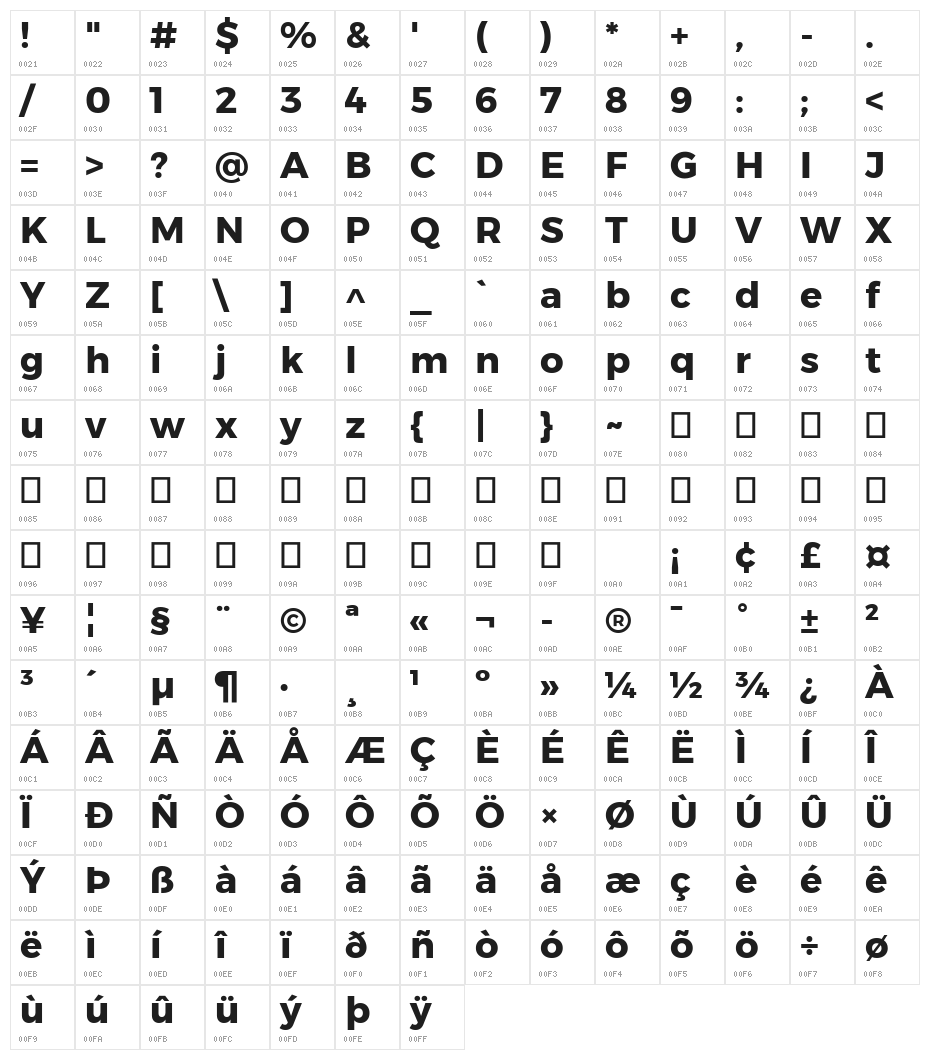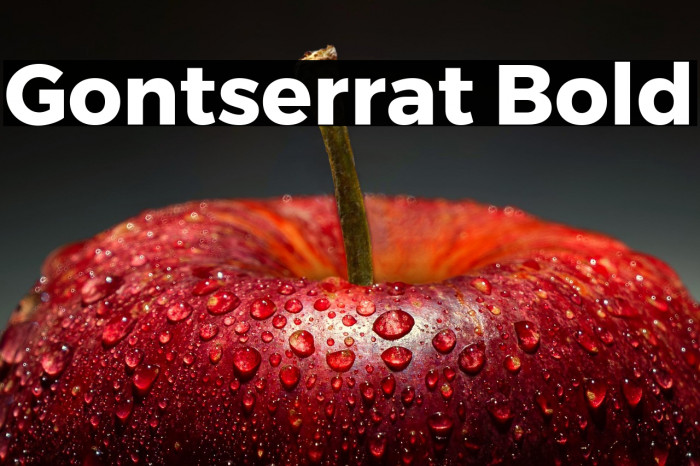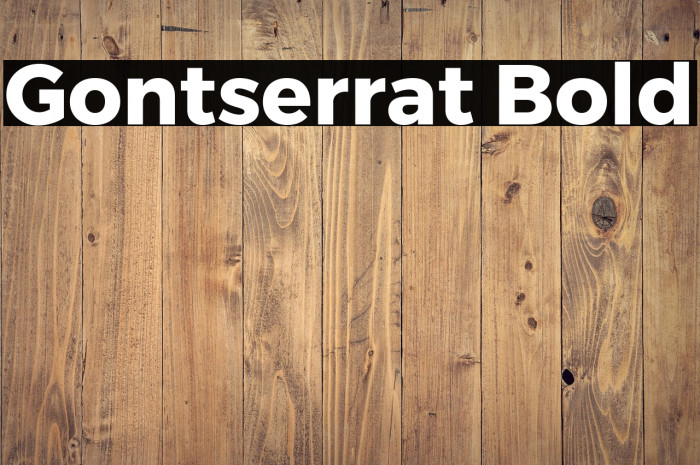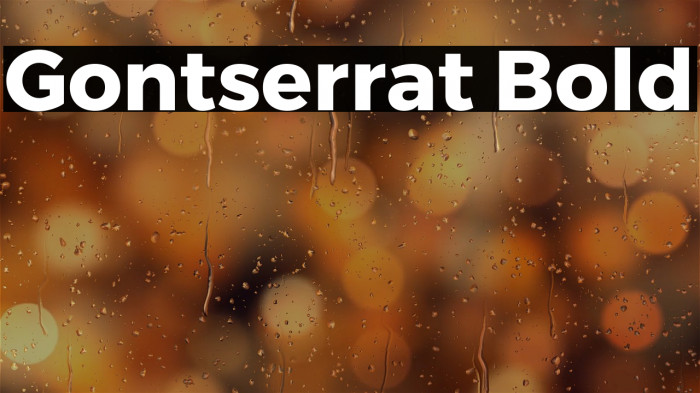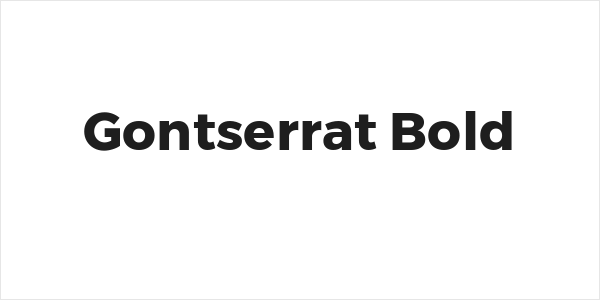
Gontserrat Bold Font
Gontserrat Bold Description
This font exhibits a bold and modern sans-serif style, characterized by clean lines and a strong presence. The uppercase letters are uniform in height, while the lowercase letters maintain a consistent baseline, ensuring readability and balance. The numerals are clear and distinct, matching the overall boldness of the alphabet. Special characters are well-defined, adding versatility to the font. Its geometric structure and even stroke width contribute to a contemporary and professional appearance, making it suitable for a variety of design applications.
Use CaseHeadlines, Logos, Branding
Proposed ProjectsIdeal for branding, headlines, posters, and digital media where a strong, modern look is desired.